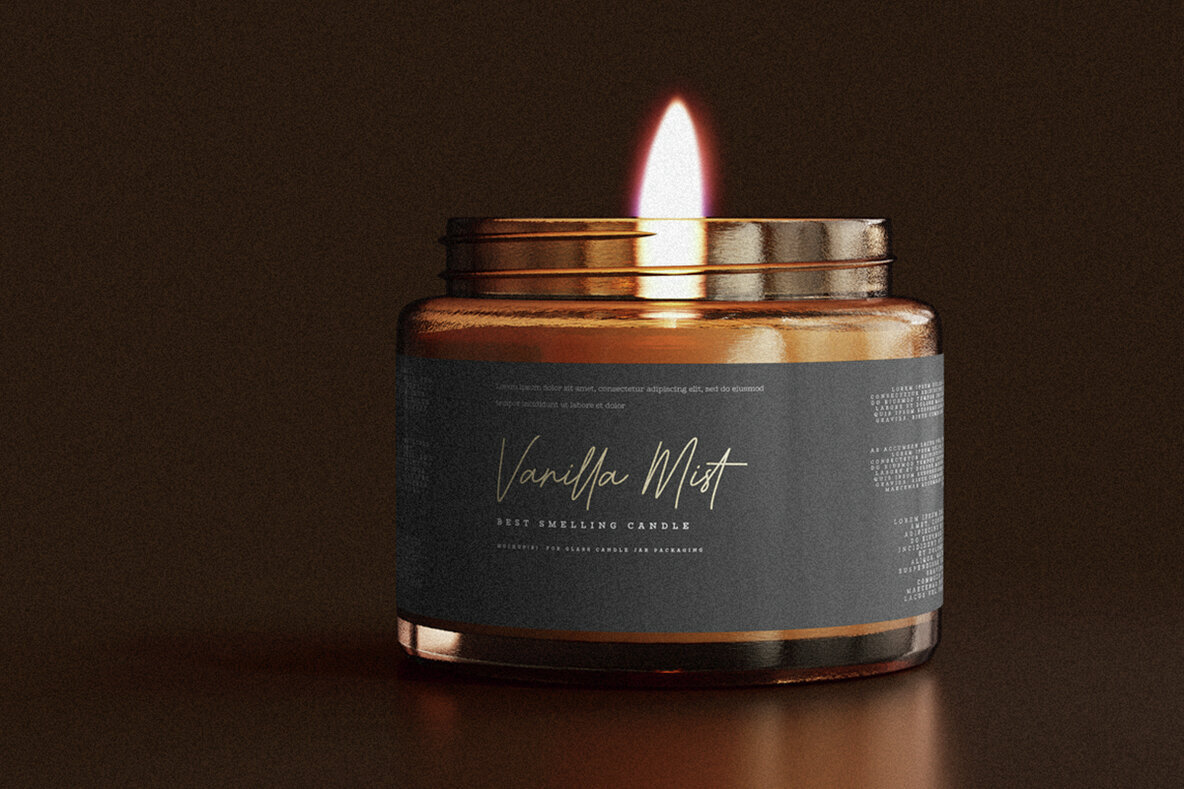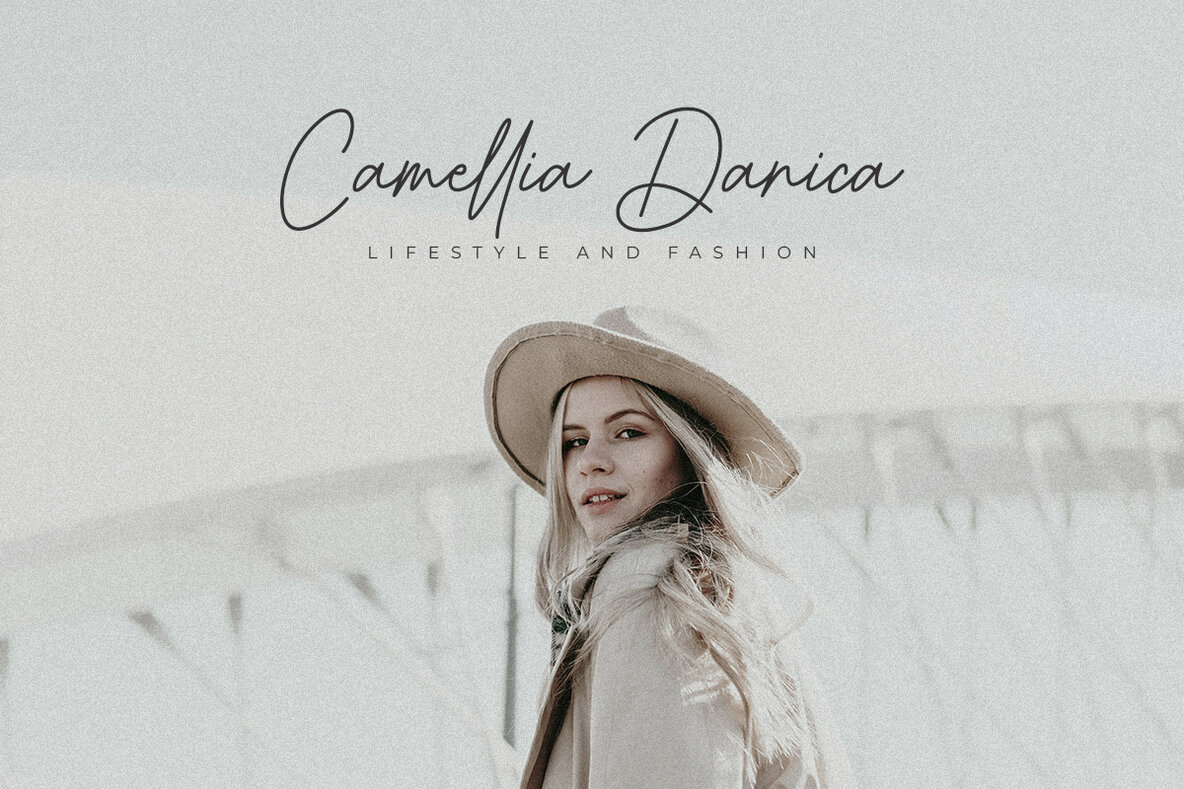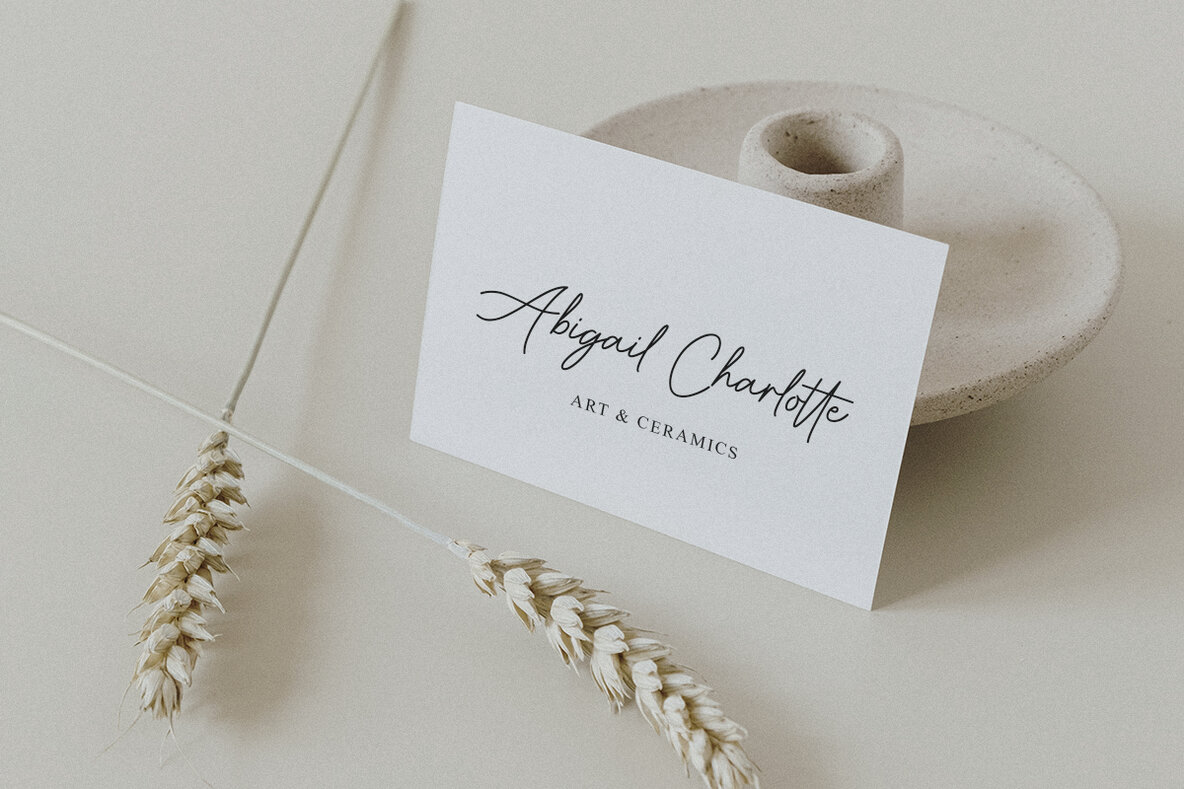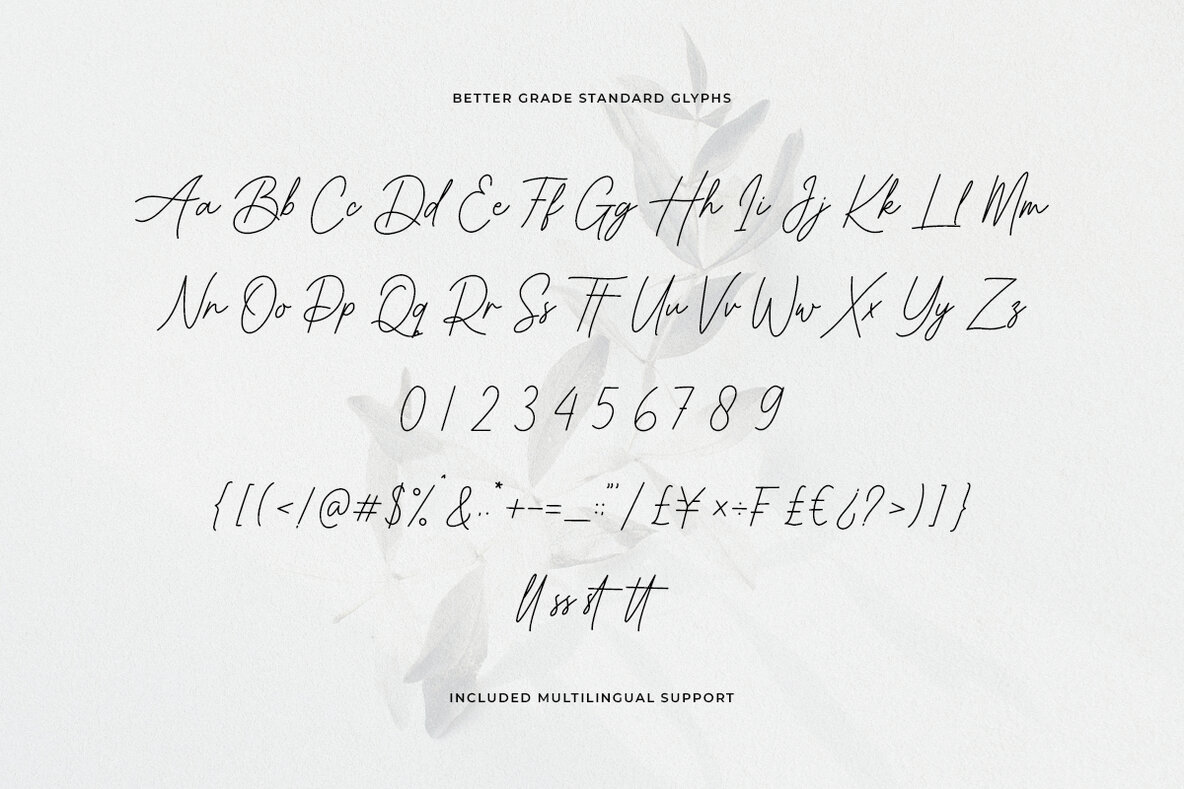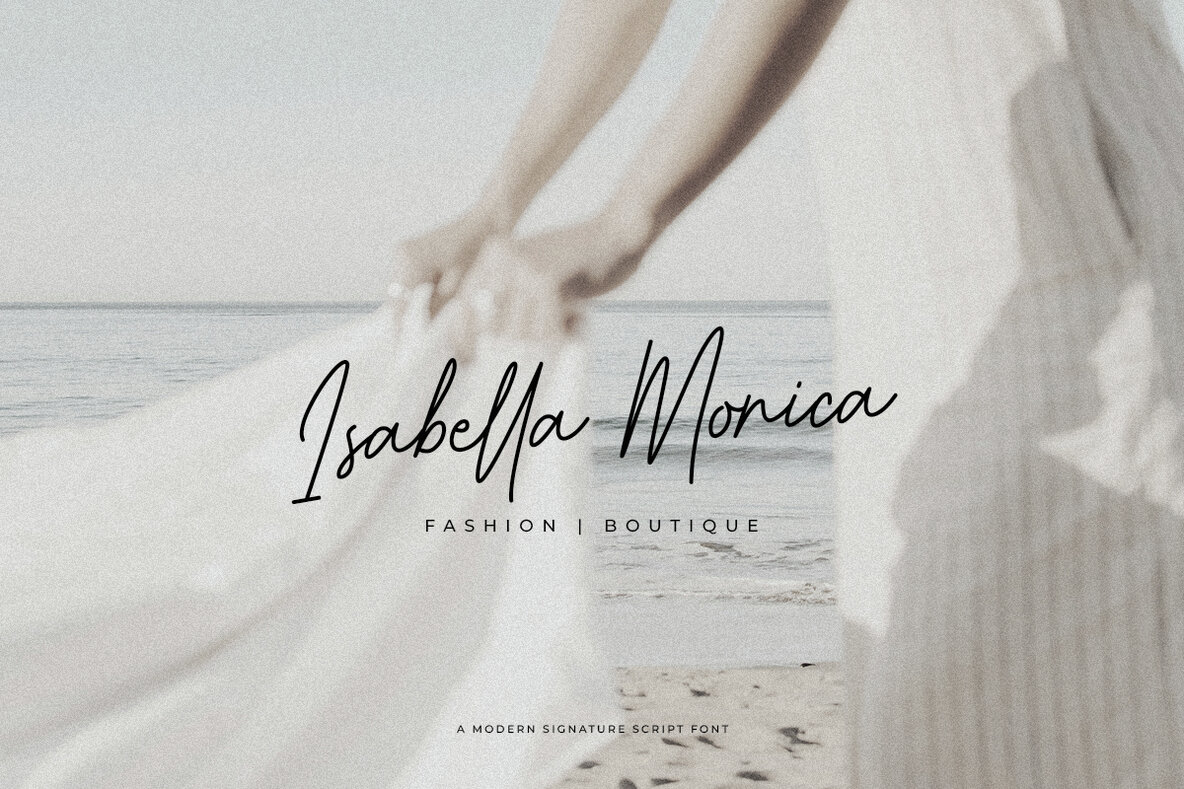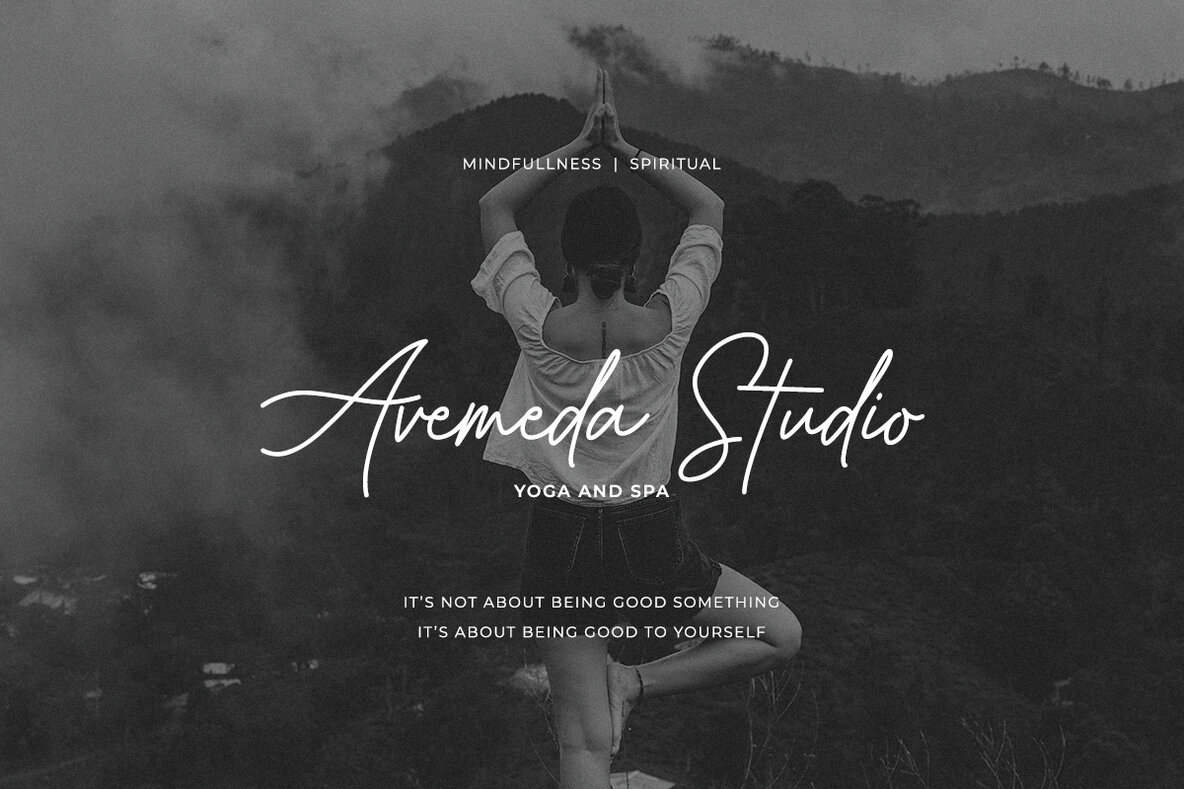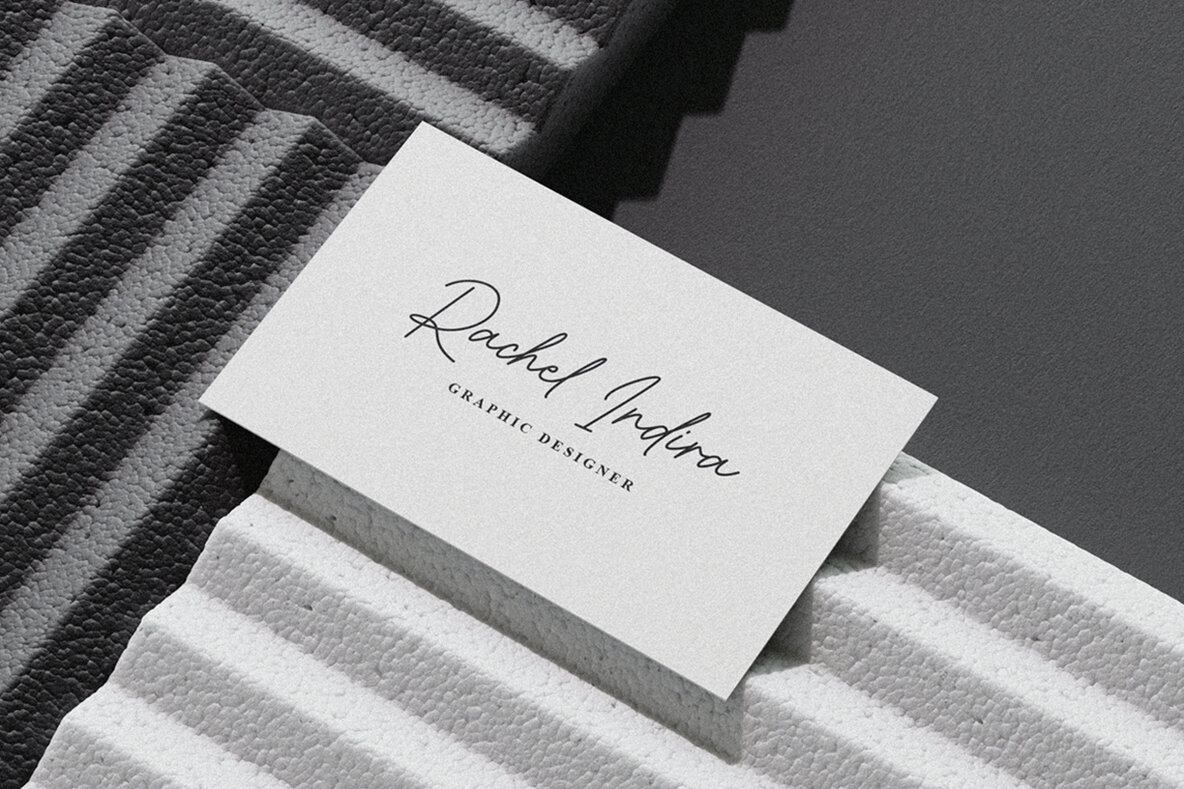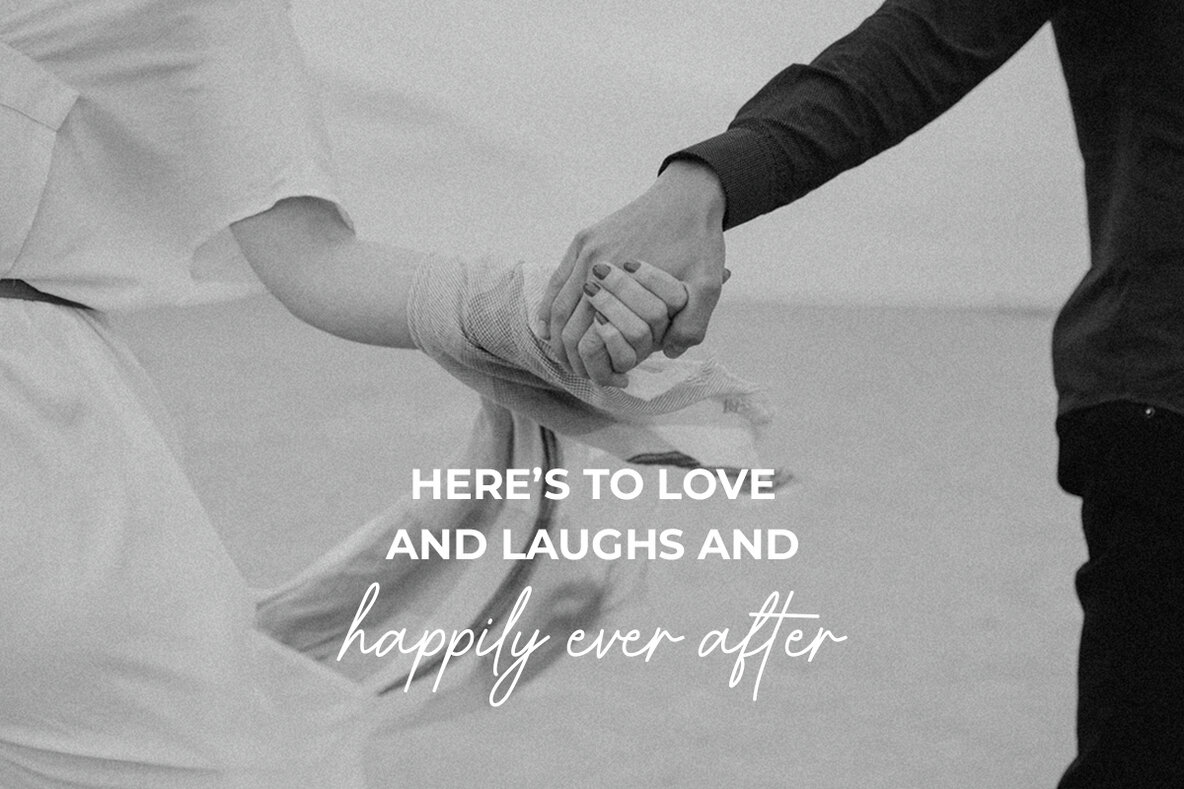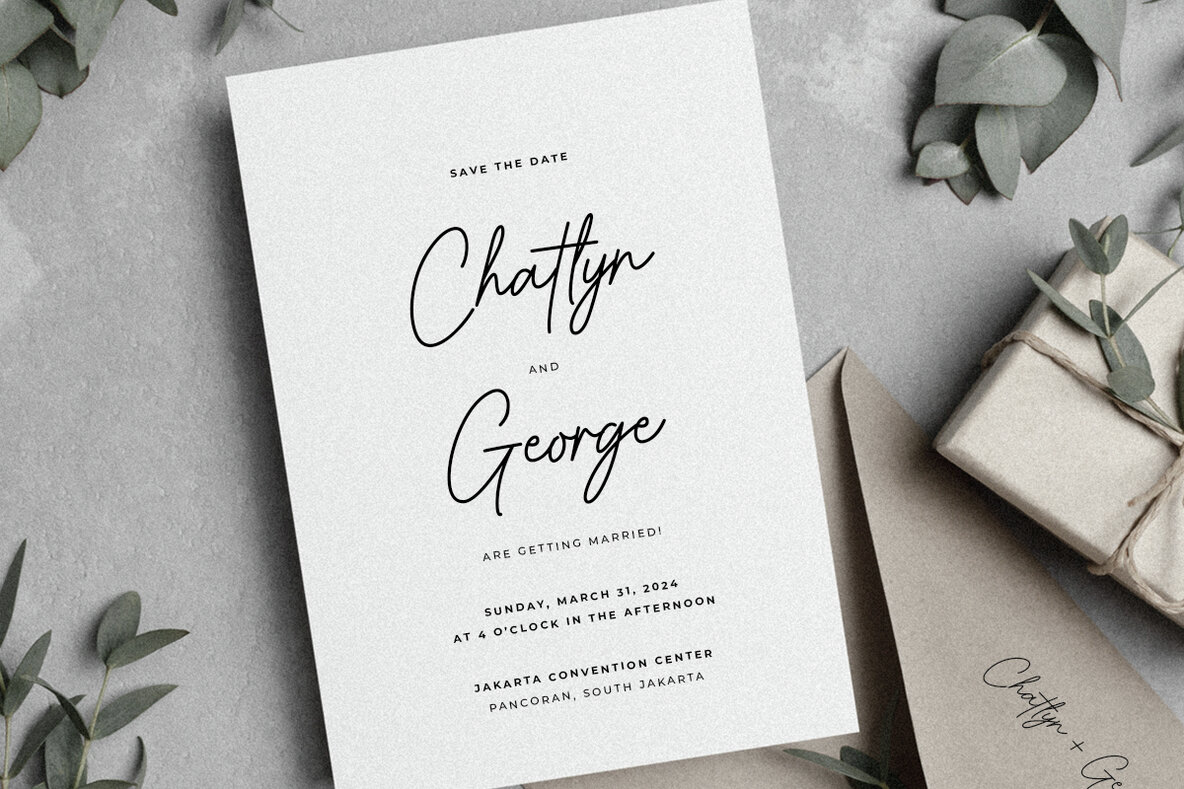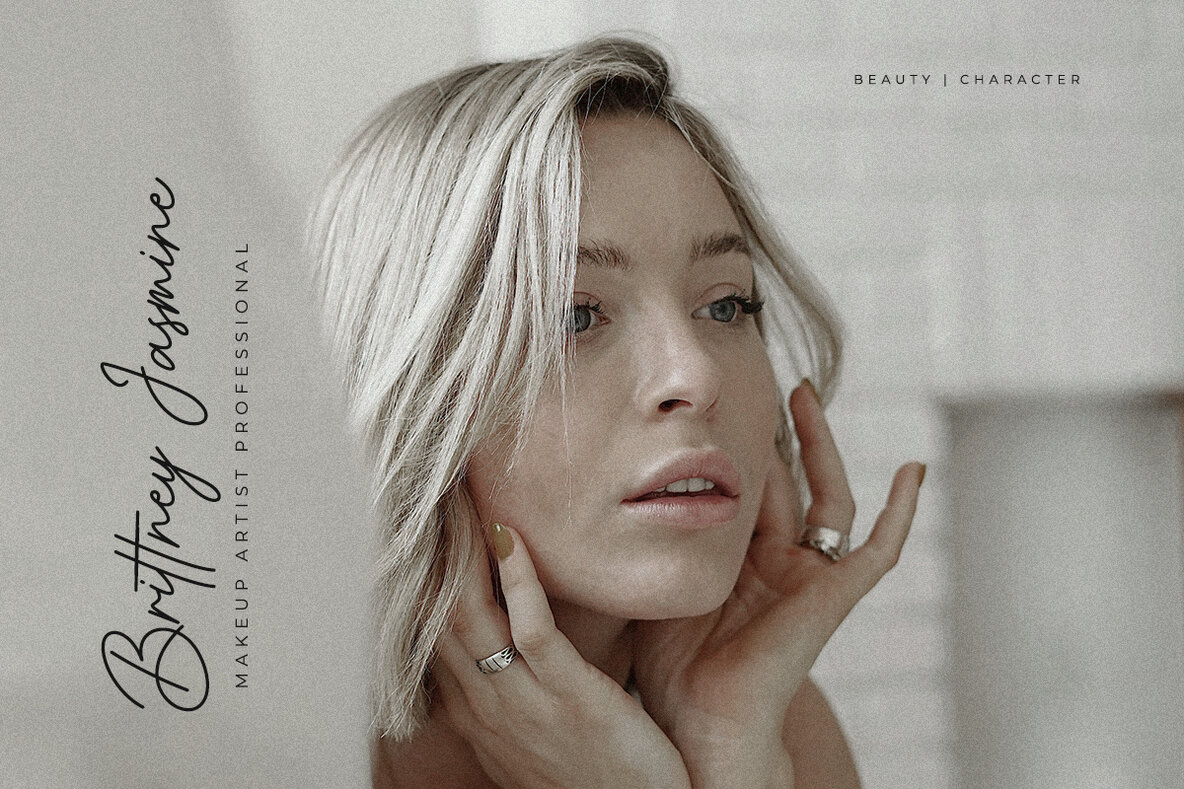
Better Grade Font
Better Grade
Better Grade is a flowing handwritten font, described by an elegant touch, perfect for your favorite projects. It looks stunning on wedding invitations, thank you cards, quotes, greeting cards, logos, business cards and every other design which needs a handwritten touch. Fall in love with its incredibly distinct and timeless style and use it to create spectacular designs!